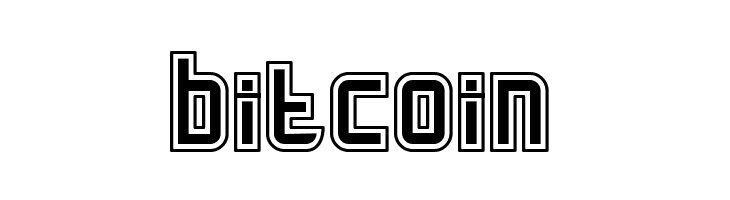
RetroVibes Font
- Font: RetroVibes
( Fonts by Beyond Design - Ola Bjorling )
A bold, geometric font with a double-line outline for a modern, futuristic look.